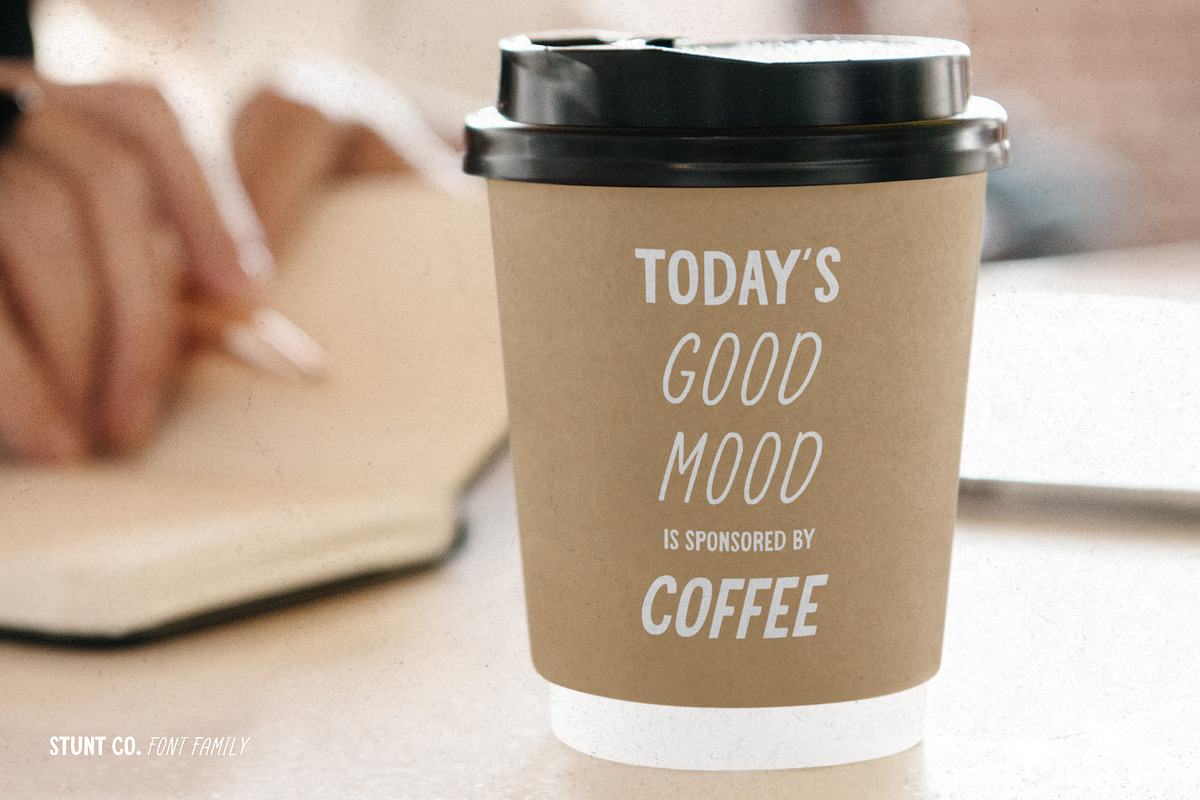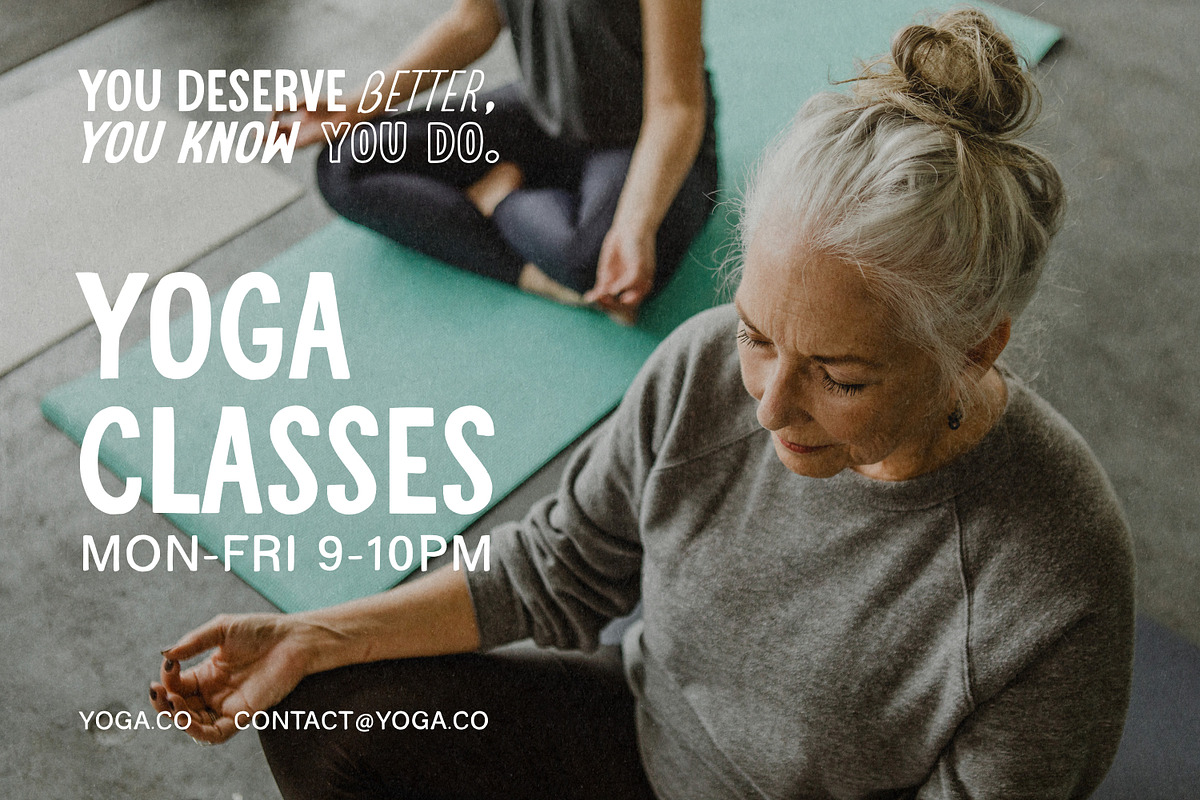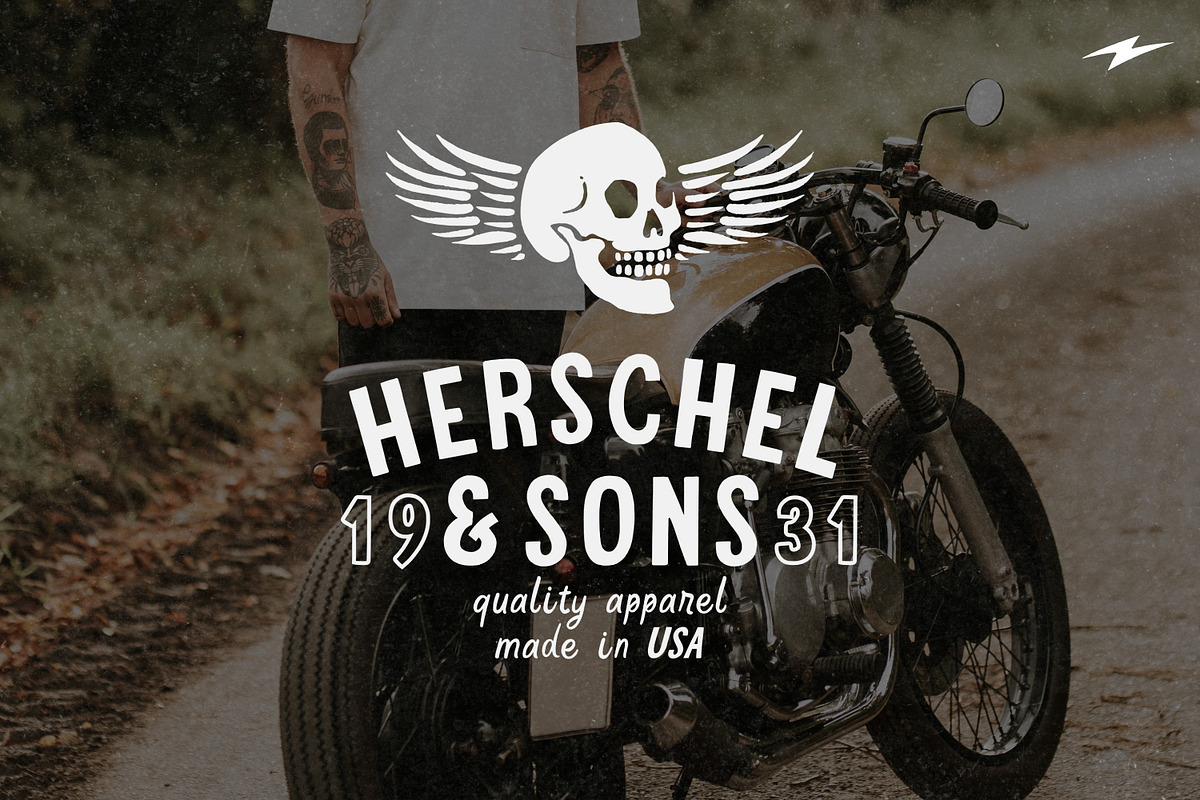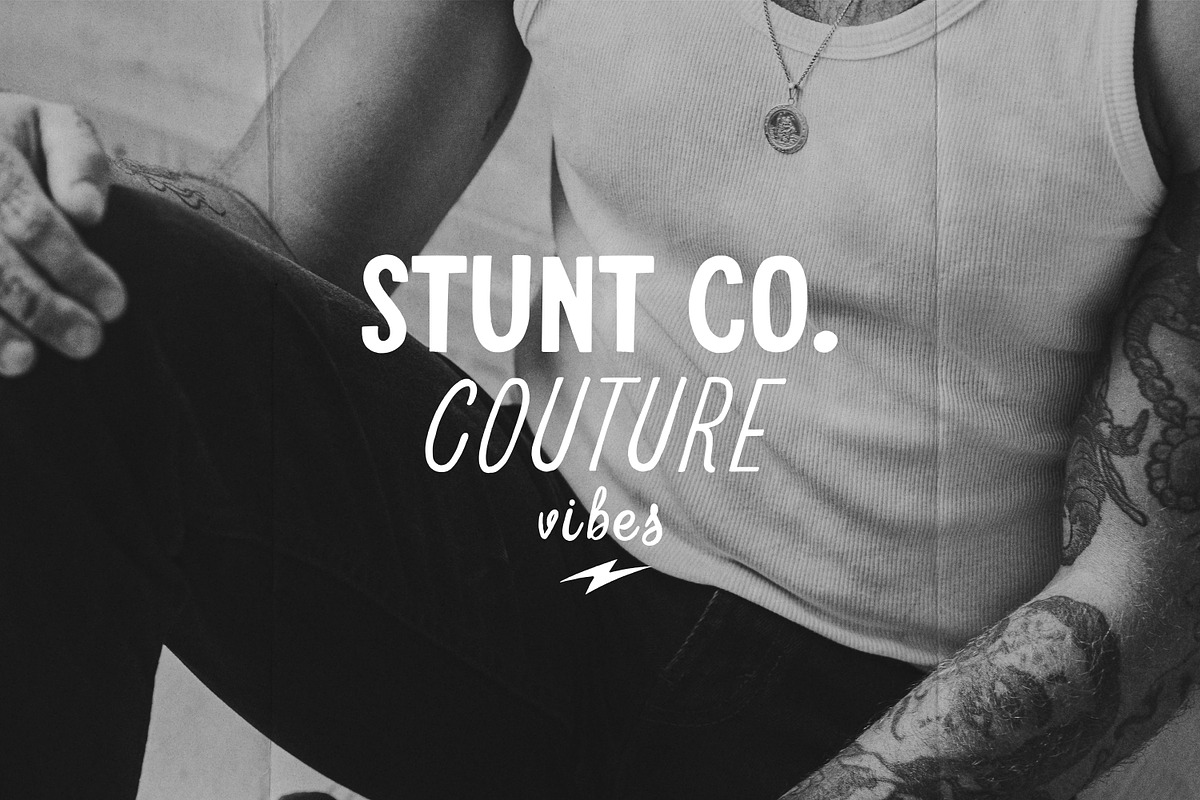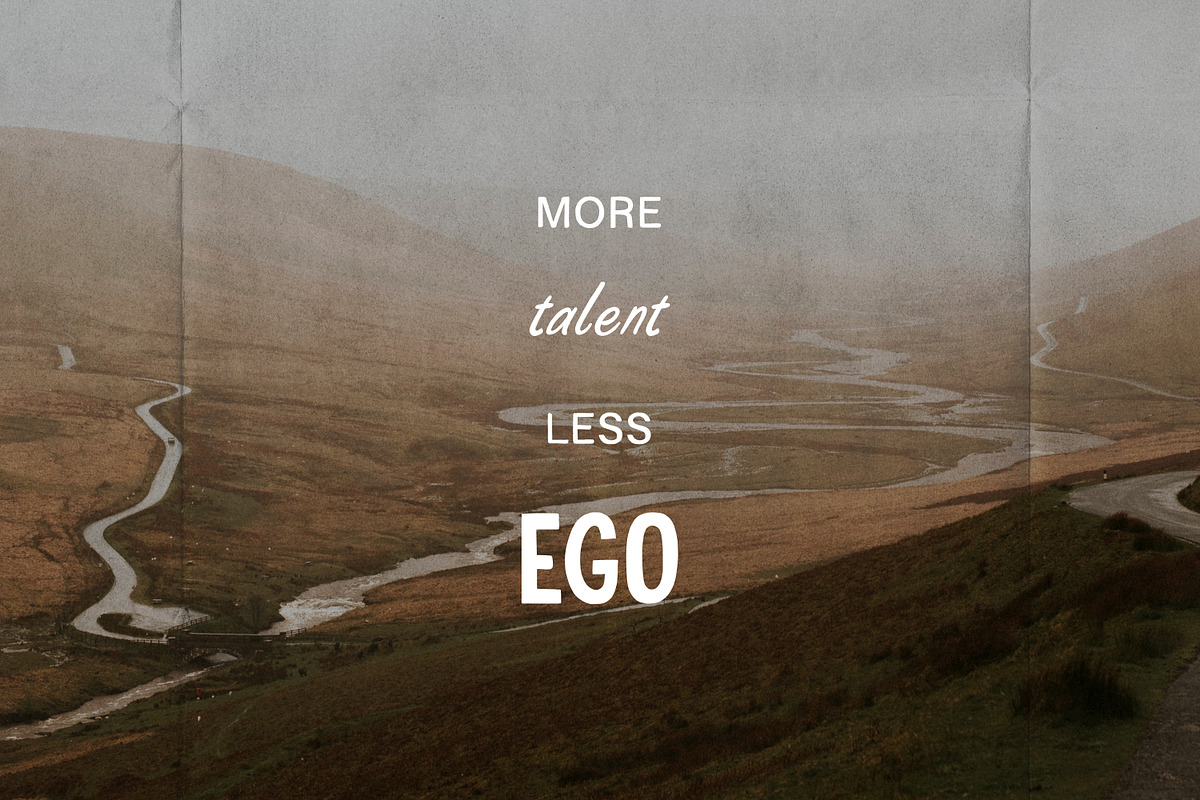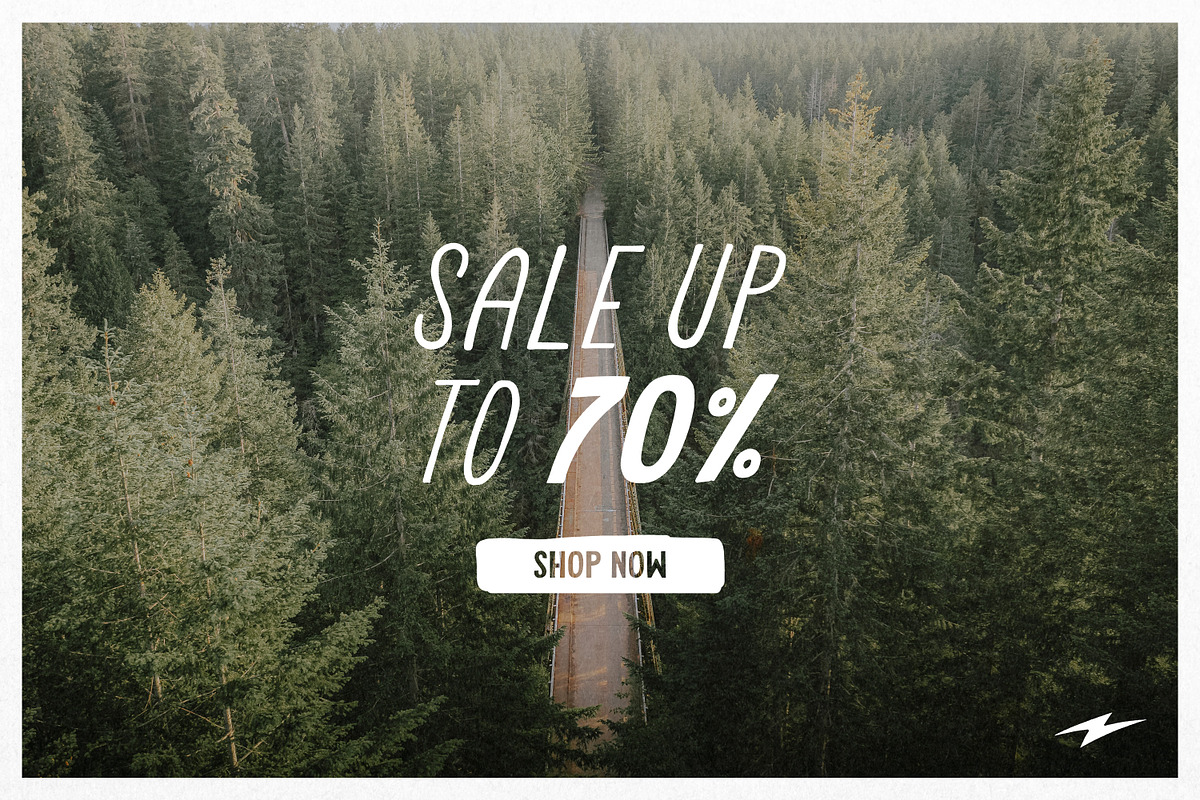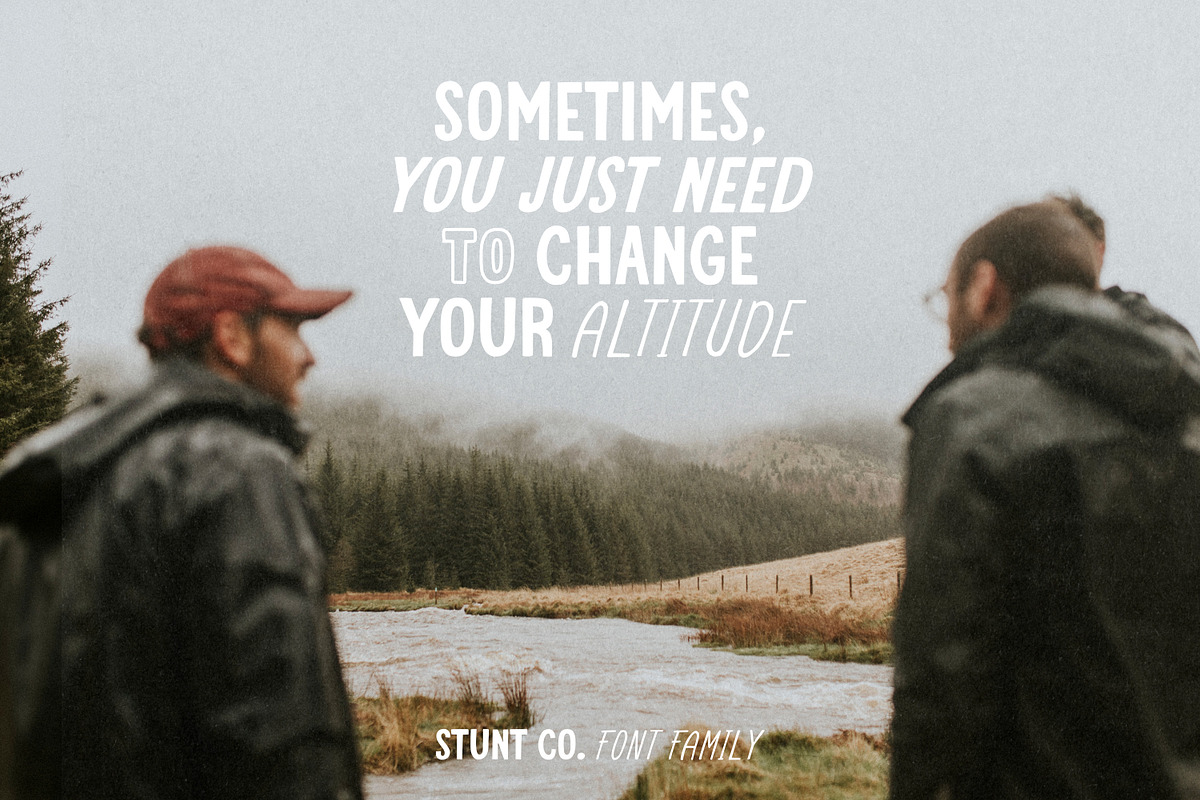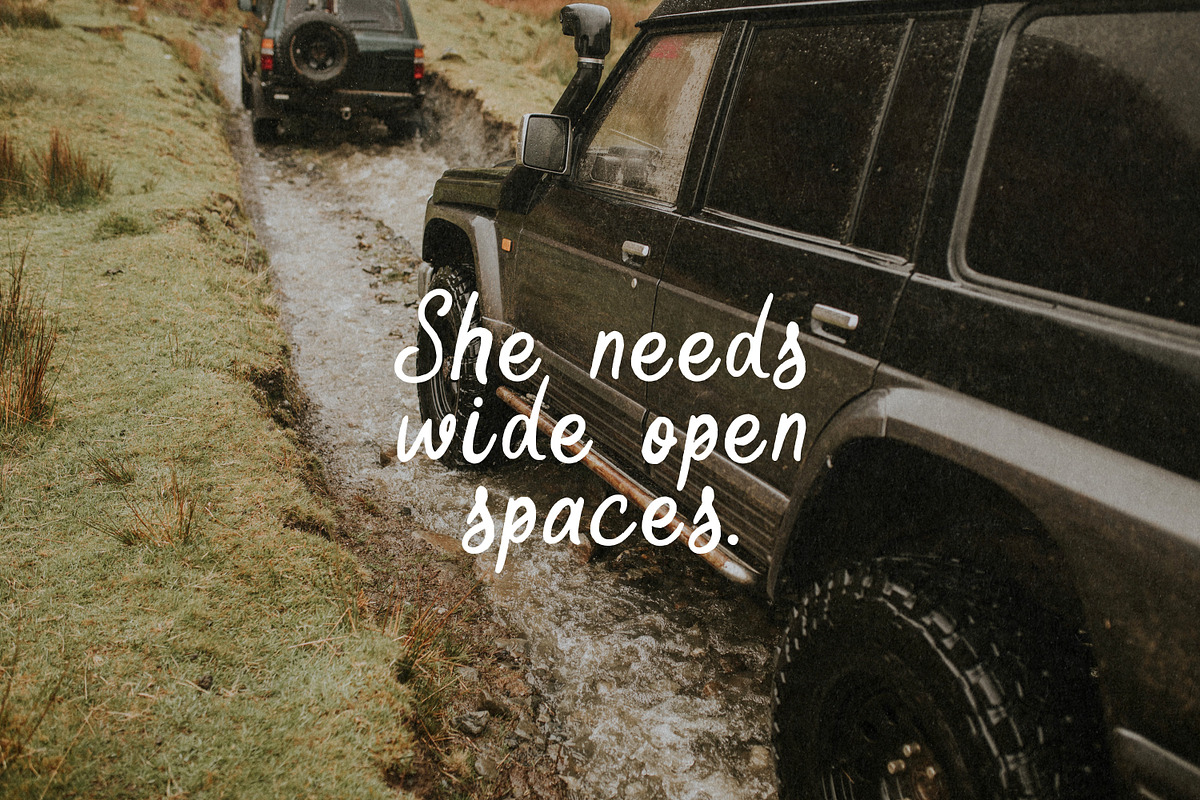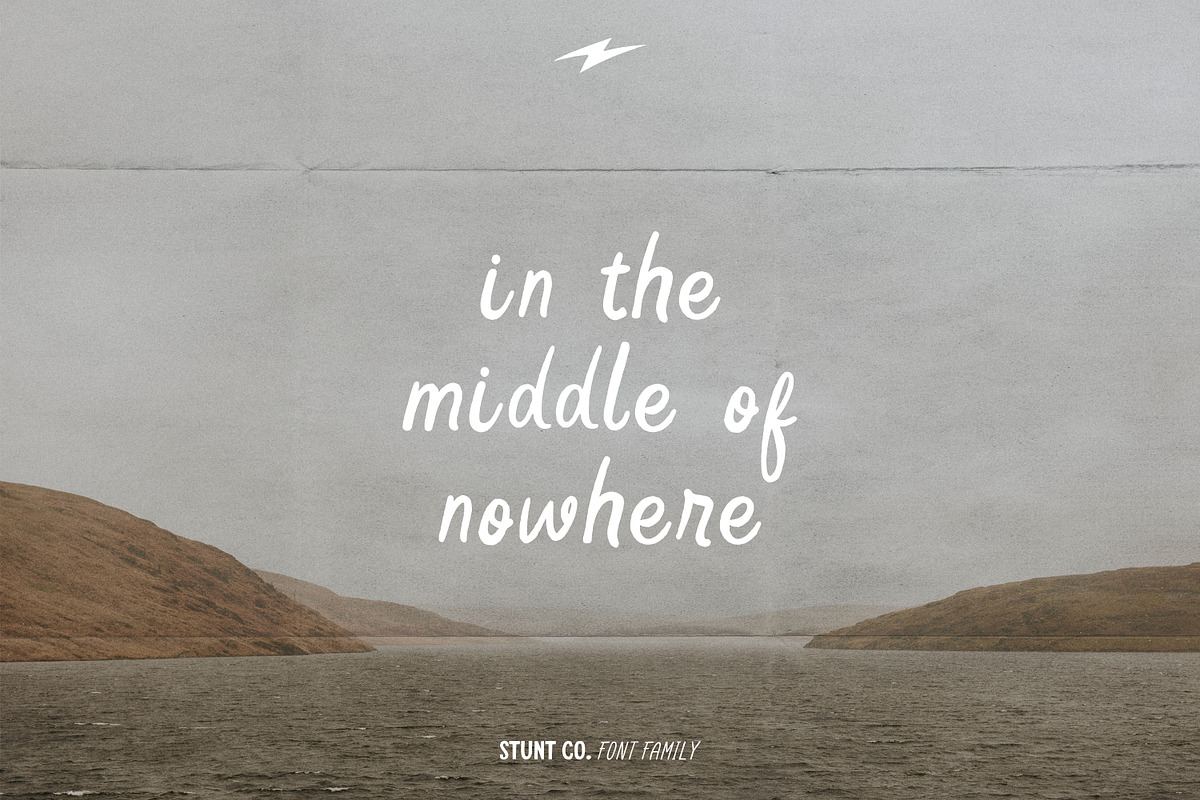
STUNT CO. Font Family + Extra
Introducing "Stunt Co.", the hand-drawn typeface that's got style for miles! With 6 unique styles to choose from, you'll never run out of options. Whether you're feeling bold with the regular style, edgy with the outline style, or fancy with the italic style, "Stunt Co." has you covered. And if you're looking for something a little more classic, check out the sans serif or condensed italic styles. But the real showstopper? The script style, which is sure to add a touch of class and sophistication to any project.